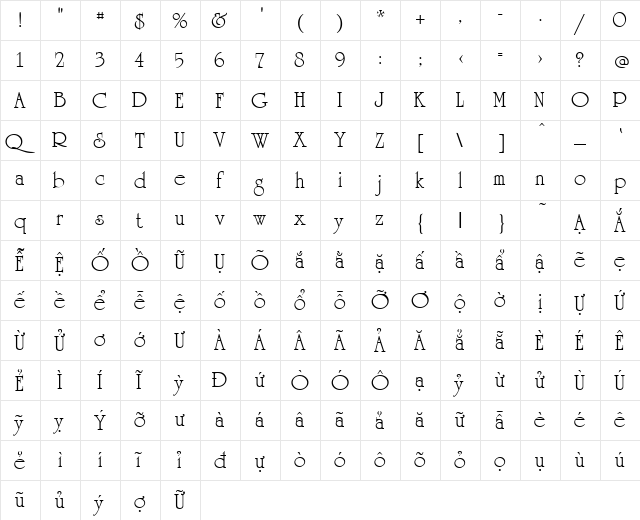
VI Duong Vi Normal Font Preview
VI Duong Vi Normal
Design Context for VI Duong Vi Typeface
VI Duong Vi offers clean, dependable letterforms without strong stylistic allegiance, making it a practical choice for designers who need flexibility.